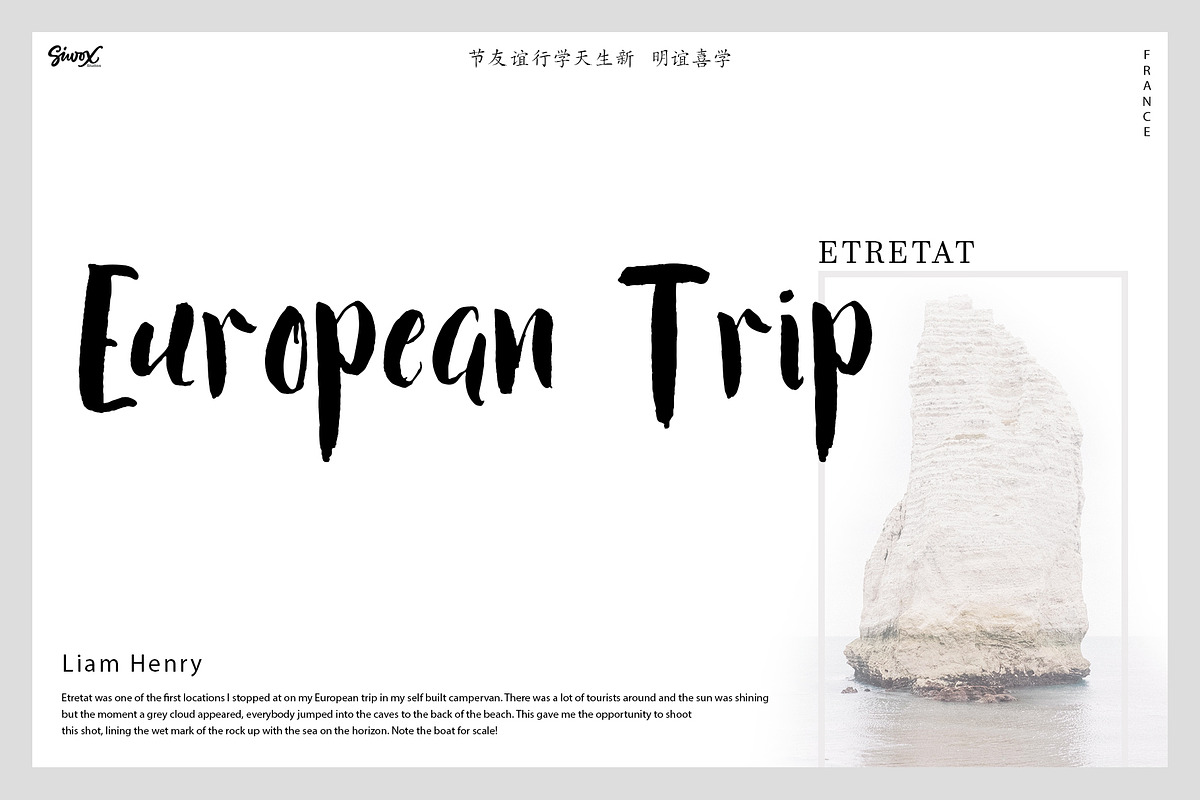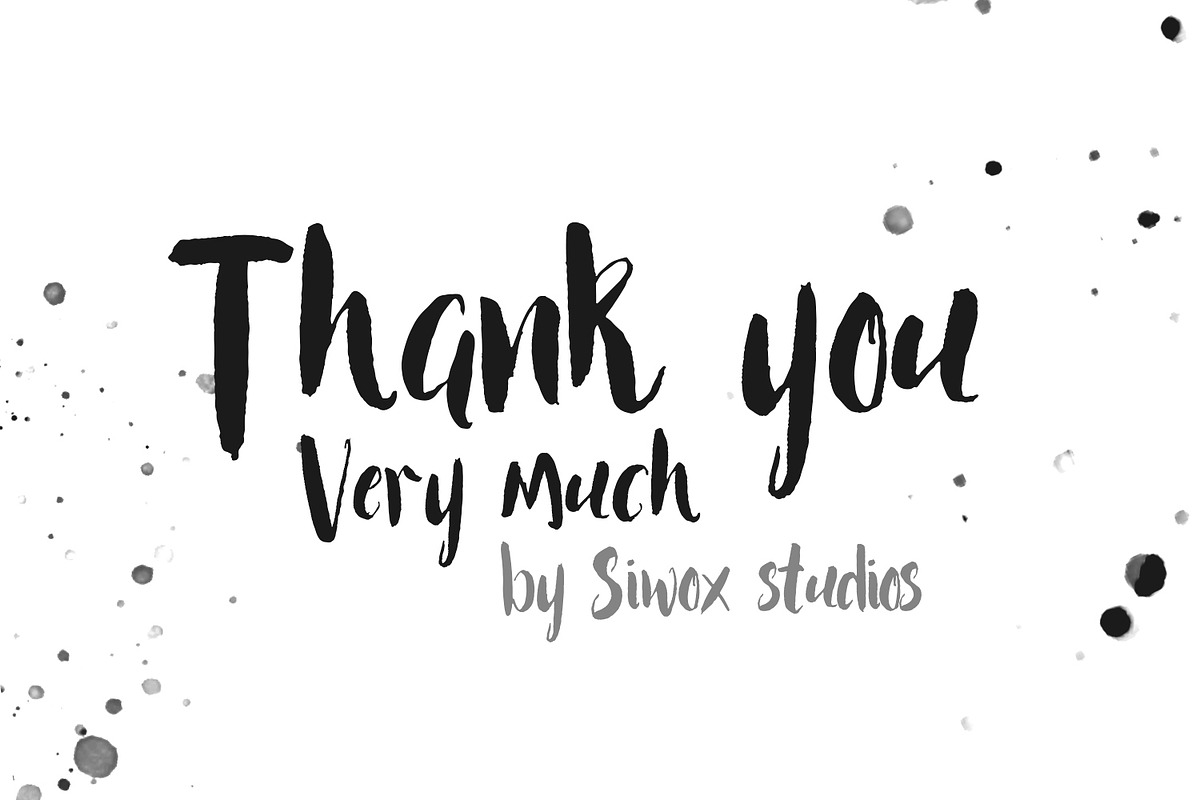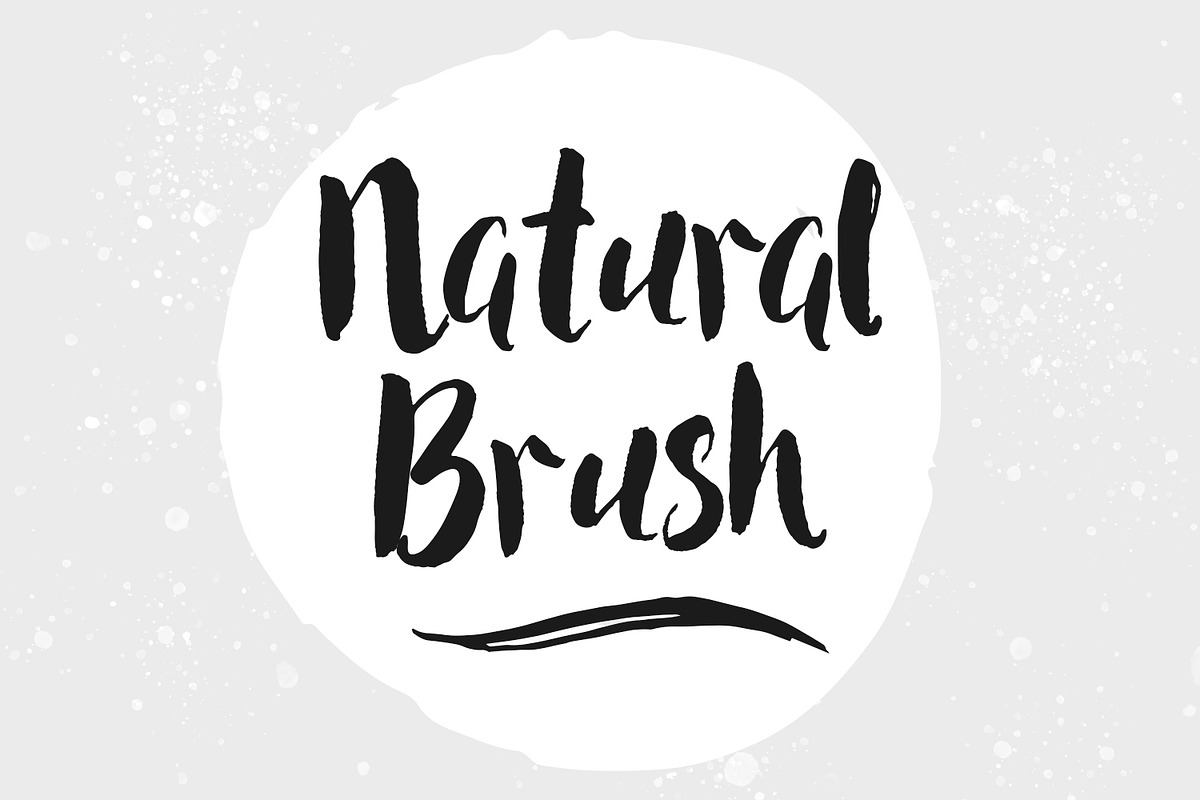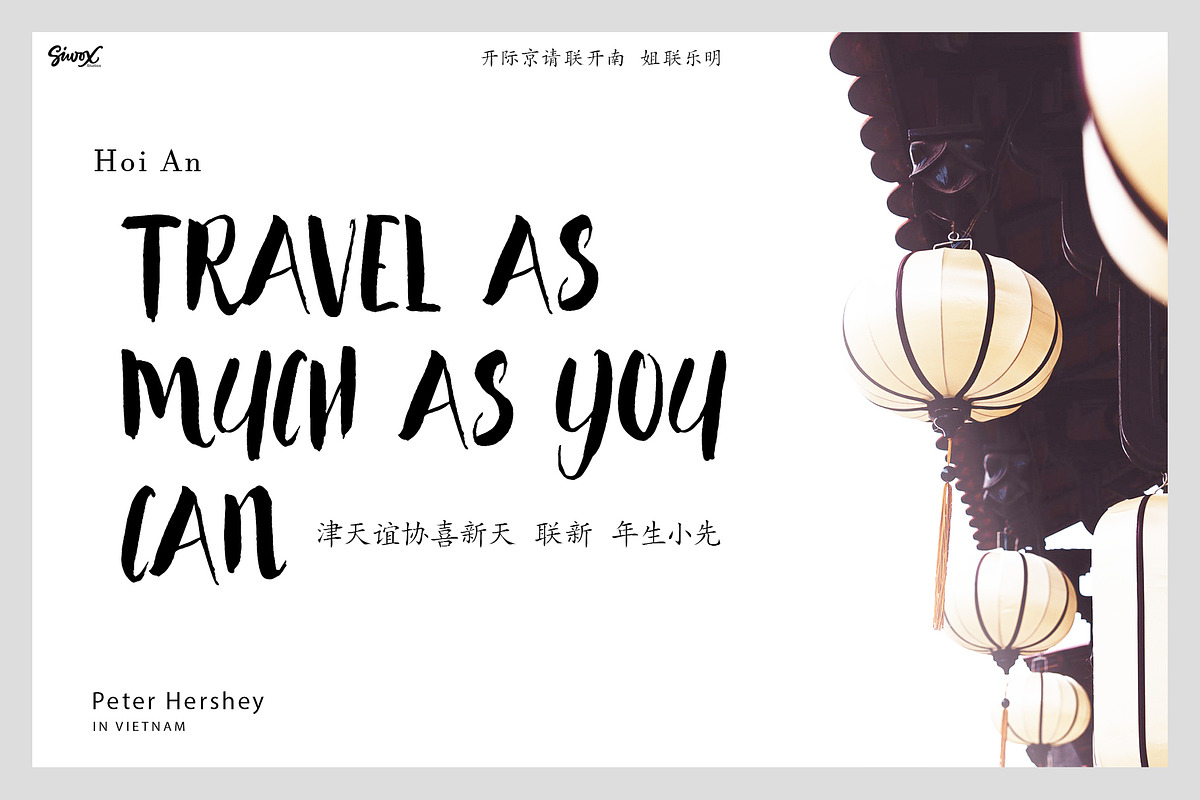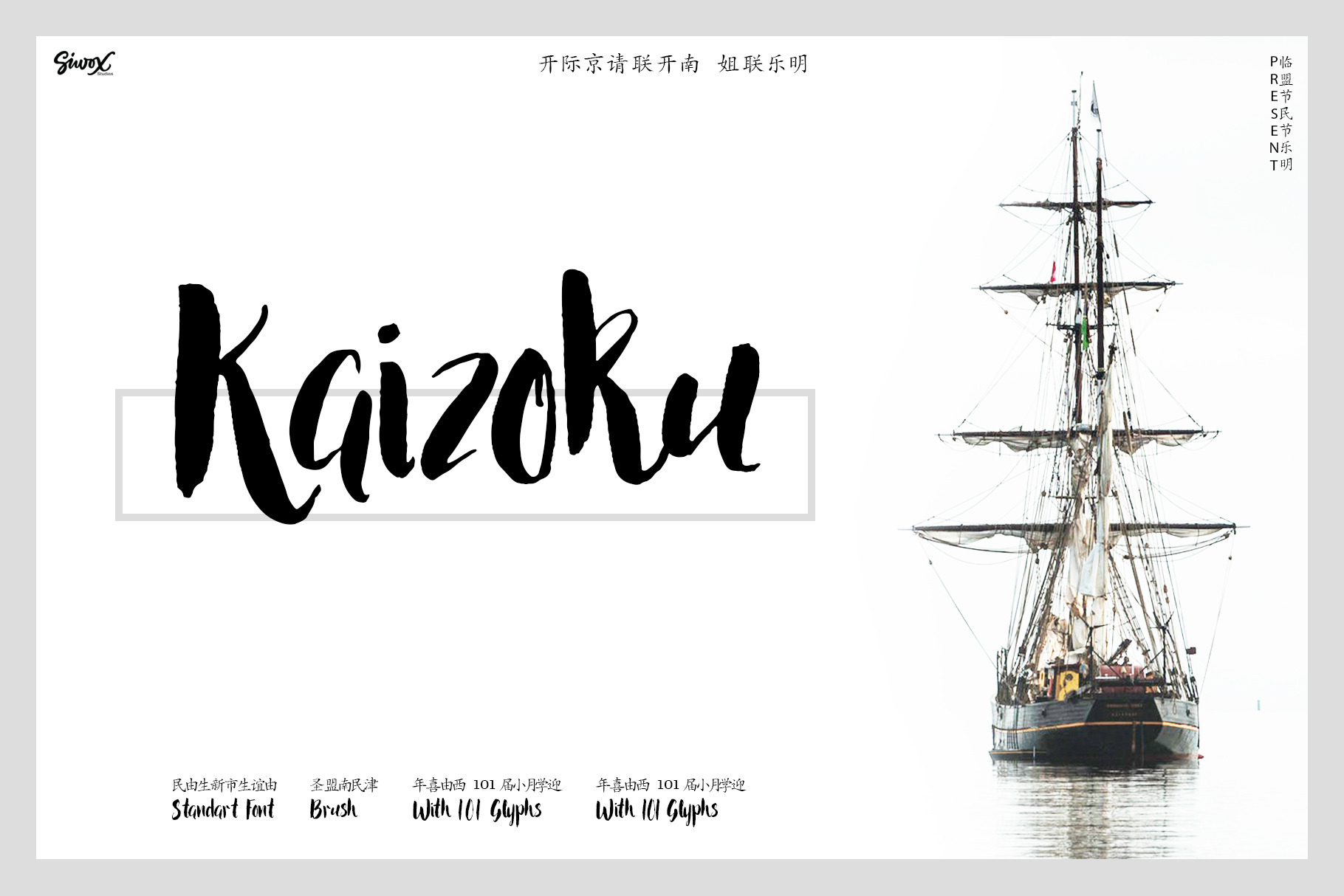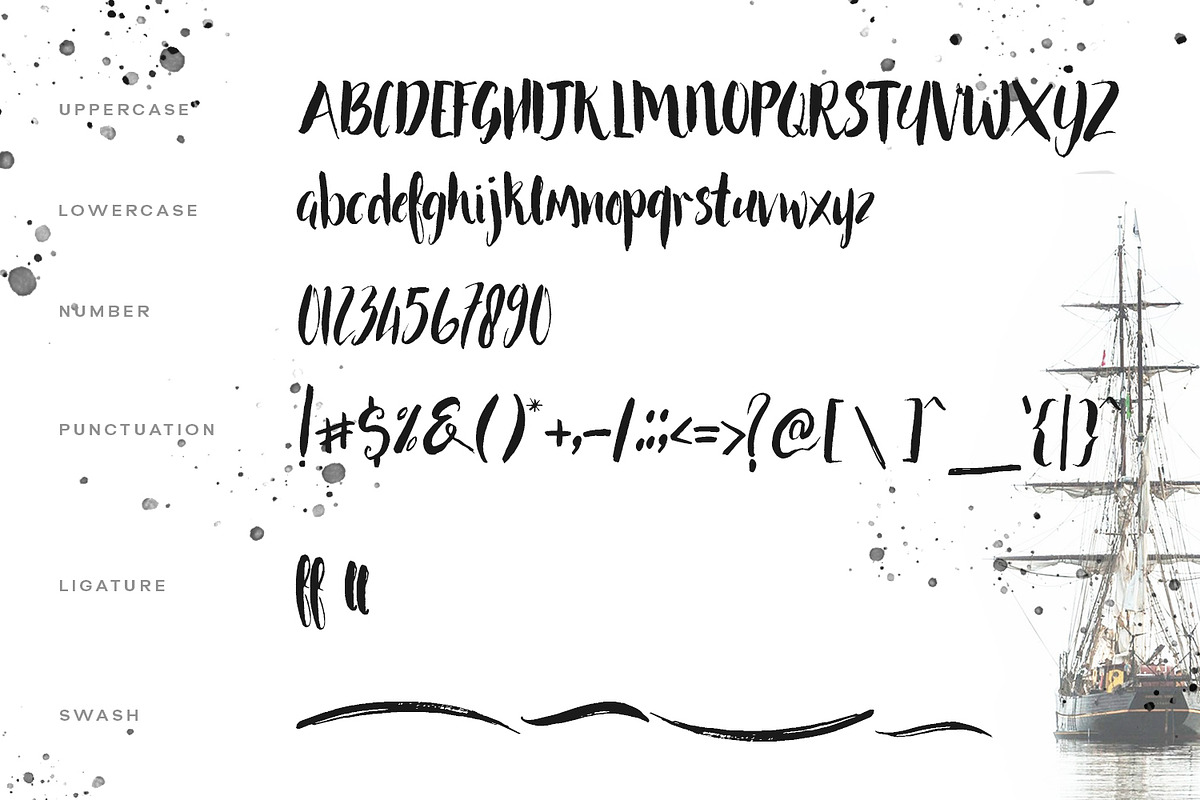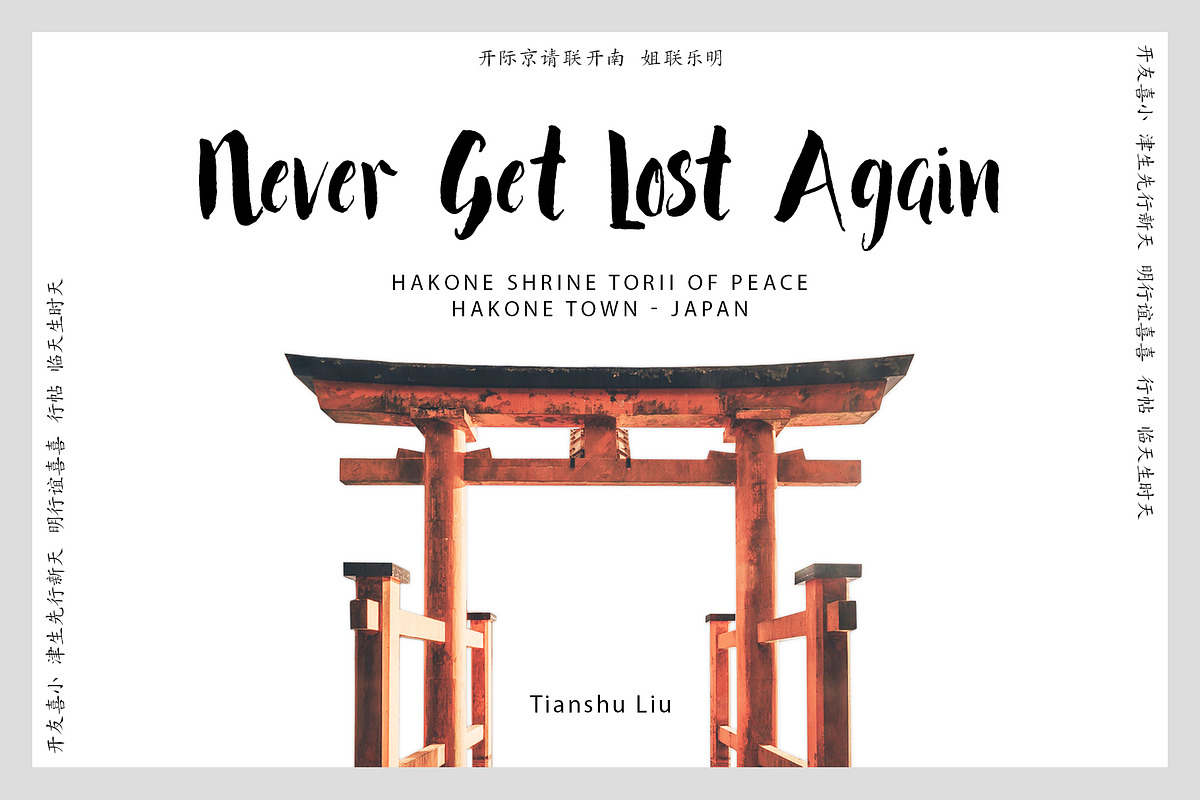
Kaizoku Brush Font
Introducing the KAIZOKU BRUSH FONT
Kaizoku is a lovely and delicate script font that exudes elegance and class. This font was particularly crafted for those who need a beautiful and refreshing look to their designs.